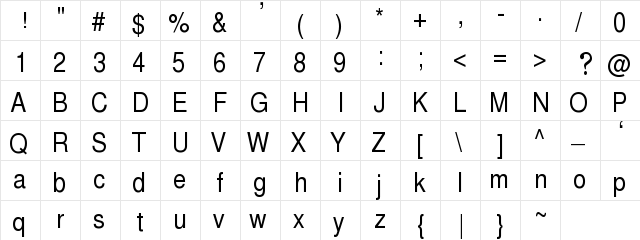
Likhan Normal
| Foundry | Majantali |
| Designer | Deepayan Sarkar |
Design Context for Likhan Typeface
Likhan offers clean, dependable letterforms without strong stylistic allegiance, making it a practical choice for designers who need flexibility.